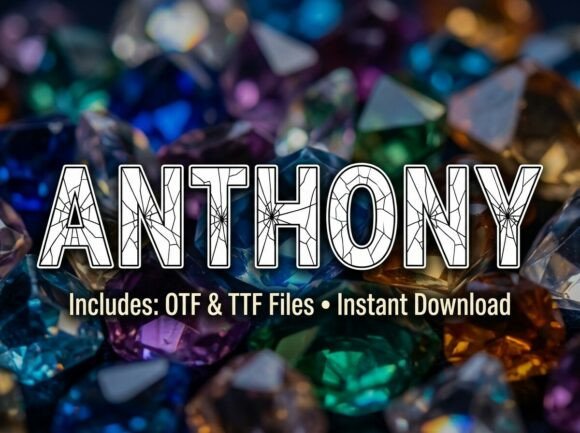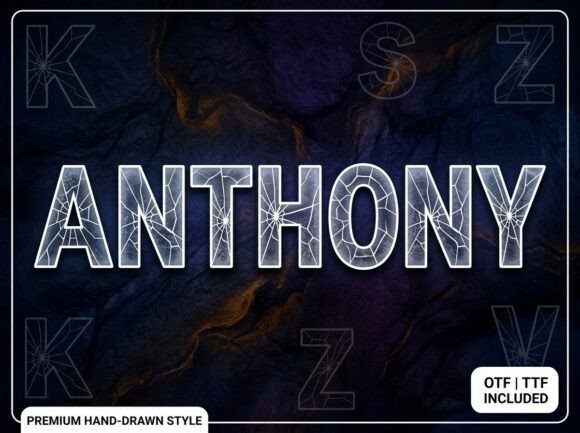
Breaking Through the Noise with Anthony Font
Have you ever stared at a blank canvas, trying to bring a bold idea to life, but struggling to find the right words to express it? That’s where Anthony Font comes in – a high-impact display font designed to cut through the noise and make a statement. This powerful typeface is more than just a font, it’s a visual representation of a “fragile-yet-powerful” soul.
With its bold, sans-serif letterforms and intricate shattered glass patterns, Anthony Font adds a unique touch to any design. Whether you’re creating titles for an independent action-thriller movie, branding for an extreme sports company, or designing a high-concept modern art gallery, Anthony Font is the perfect choice. Its heavy weight and sharp, rhythmic line work make it a valuable tool for designers looking to add an extra layer of depth and emotion to their work.
By incorporating Anthony Font into your design, you’ll be able to convey a sense of strength and vulnerability, making it an essential addition to any designer’s toolkit.
Key Features of Anthony Font
- Font Family: Anthony Font is a sans-serif font family designed for digital use.
- Unique Characteristics: Anthony Font features a modern, clean design with a unique blend of geometric and rounded shapes, making it ideal for digital and print applications.
Anthony Font Review
Overall, I’m quite impressed with Anthony Font. It has a clean and modern design that can be applied to a wide range of projects, from digital products to print materials.
- ✨ Elegant and refined look that’s perfect for luxury brands or high-end products.
- ✨ Wide range of weights and styles, allowing for great flexibility in design.
- ✨ Highly legible, even at small font sizes.
- ⚠️ Some characters may appear slightly pixelated or aliased, particularly at low resolutions.
- ⚠️ Limited support for certain languages or scripts, which may be a concern for global brands or multilingual projects.
Overall, Anthony Font is a solid choice for designers looking for a modern, elegant sans-serif typeface. While it may not be perfect, its strengths outweigh its weaknesses, making it a great addition to any design library.
Getting the Most Out of Anthony Font
Here are some tips to help you get the most out of Anthony Font:
1. Experiment with different font sizes and colors to create visually appealing designs.
2. Use Anthony Font in combination with other fonts to create a unique and eye-catching style.
3. Apply Anthony Font to headings and titles to create a clear hierarchy of information.
Anthony Font is commonly used for:
1. Branding and identity design.
2. Headings and titles in digital designs.
Alternatives to Anthony Font for Designers
Anthony Font is a popular font choice among designers, but it may not suit every project. Here are some alternatives to consider:
Montserrat Font is a sans-serif font designed by Julieta Ulanovsky. It’s a great choice for digital products, logos, and titles due to its clean and modern look. Montserrat Font is more geometric and has a stronger structure than Anthony Font, making it ideal for projects that require a strong visual identity.
Lato Font is a sans-serif font designed by Łukasz Dziedzic. It’s a versatile font suitable for both digital and print media. Lato Font is more rounded and friendly than Anthony Font, making it perfect for projects that require a softer and more approachable tone.
Open Sans Font is a sans-serif font designed by Steve Matteson. It’s a highly legible font suitable for digital products, documents, and presentations. Open Sans Font is more neutral and accessible than Anthony Font, making it ideal for projects that require a clear and easy-to-read font.